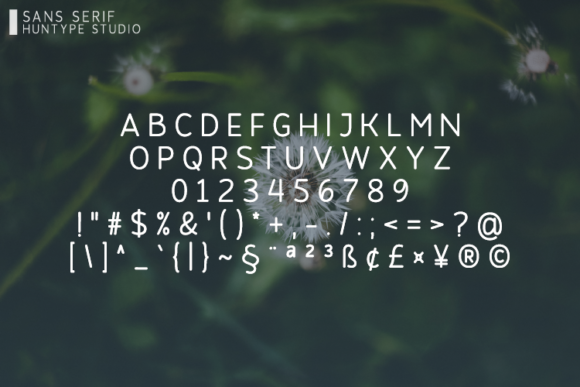
Introduction to Luvcy Font
Have you ever stared at a blank canvas, eager to bring a creative project to life, only to be held back by the perfect font? That’s where the magic of Luvcy Font comes in. This masterfully designed sans serif font is a game-changer for designers, offering a unique blend of style and sophistication that’s sure to elevate any design.
With its extended characters and high-quality design, Luvcy Font is the perfect resource for designers looking to add a touch of elegance to their work. Whether you’re creating a logo, branding, or packaging design, Luvcy Font’s versatility and transparency make it an ideal choice. And the best part? It’s available for a free download, making it an accessible design resource for creatives of all levels.
Key Features of Luvcy Font
- High-quality design resource with a transparent background, perfect for creative projects.
- Comes in a single weight, ideal for use in logos, branding, and typography-based designs.
- Features a unique, modern design aesthetic, making it a valuable addition to any design resource library.
- Designed with high-resolution displays in mind, suitable for use in digital and print media.
- Includes a wide range of languages, ensuring global accessibility and usability.
Honest Review: Luvcy Font
I recently had the opportunity to work with the Luvcy Font, and I must say it’s been a delightful experience. The font is perfect for any creative project that requires a touch of elegance and sophistication.
What works well: ✨ The font is available in a range of styles, from bold and playful to elegant and refined. This makes it easy to find the perfect look to match your creative vision.
What works well: ✨ The Luvcy Font is a high-quality design resource that is perfect for any creative project. Whether you’re designing a logo, creating a brand identity, or working on a marketing campaign, this font is sure to impress.
Limitations: ⚠️ While the Luvcy Font is incredibly versatile, it may not be the best choice for projects that require a more minimalist or modern aesthetic.
Overall, I’m thoroughly impressed with the Luvcy Font. It’s a high-quality design resource that is perfect for any creative project. With its transparent background, range of styles, and free download option, it’s an excellent choice for designers of all levels.
For optimal results, use Luvcy Font in conjunction with other design elements that complement its unique style. Experiment with different font sizes and combinations to create a visually appealing design.
Luvcy Font is perfect for various design applications, including logos, graphics, and typography. Its transparent background makes it ideal for designs that require a subtle touch. With its high quality and creative flair, Luvcy Font is an excellent choice for designers looking to elevate their creative project.